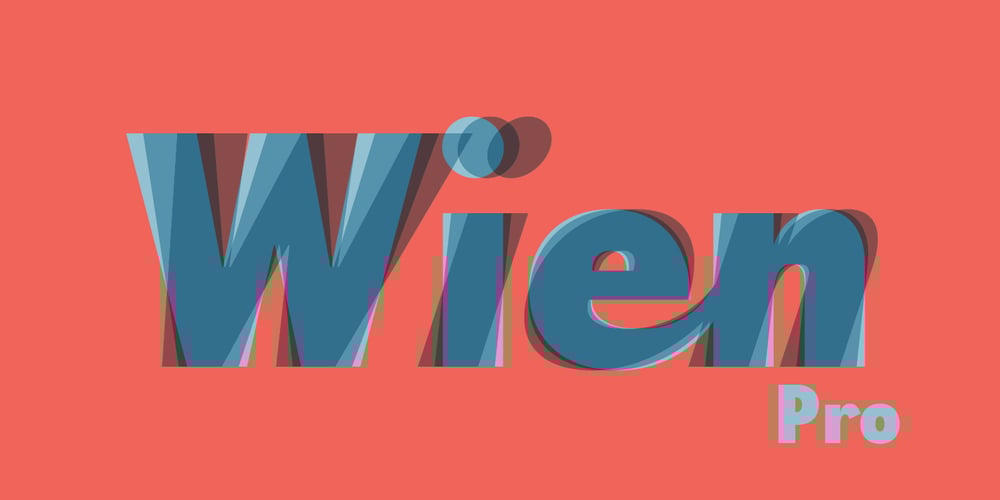
Wien Pro Font Family was designed by Ekke Wolf and published by Wannatype. Wien Pro contains 60 styles and family package options. Wien Pro, the sans serif by Ekke Wolf. Typeface lovers looking for a modern, well-developed sans serif font with a touch of retro and warm, individual lettering will get excited about a new addition to the font market. The more than complete Wien Pro front comes in three styles and four different weights. In addition to the upright Wien Pro there is the Wien Pro Oblique with a moderate 6° slant and the Wien Pro Superoblique with an 18° slant. Available weights are light, regular, medium, bold and black. These fonts are equipped with extended Latin alphabet for Central and Eastern Europe and also Cyrillic and Greek alphabet. The set of characters includes nine different sets of numbers, plus its own set for the small caps, as well as alternative characters and groovy ligatures. In addition, all Wien Pro styles are also available as unicase with upper case and lower case x-height alignment. The style, metrics and proportions of Wien Pro combine perfectly with the Liebelei Pro and the script fonts of the Calafati Pro.